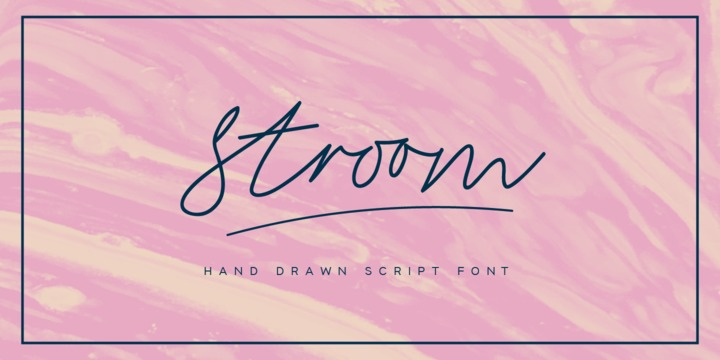
Stroom Script Font
Stroom Script Font is perfect for fluid beauty branding, water wellness centers, streamlined fitness campaigns, flowing fashion designs, liquid skincare packaging, renewable energy marketing, modern spa materials, dynamic creative agencies, and contemporary lifestyle brands.
What makes Stroom Script Font exciting is its fluidly dynamic character that captures the natural grace and continuous movement of flowing water through elegantly streaming letterforms that seem to cascade with effortless motion and organic beauty. The font features smooth connecting strokes with current-like details that evoke the refreshing energy and vital flow found in nature's most essential element. Its streamlined aesthetic and fluid authenticity make it perfect for brands that want to communicate flow, vitality, and the seamless movement that defines optimal performance while creating memorable experiences that celebrate the power of natural momentum and the beauty of uninterrupted motion.
Stroom Script Font family includes various flowing script weights such as Light, Regular, and Bold variations, often featuring stream-inspired alternates and fluid decorative elements. The family may include water symbols, flowing ornaments, and current ligatures that enhance the font's dynamic aesthetic, providing designers with comprehensive options for creating graceful typographic compositions that honor the natural beauty of flowing movement and continuous motion.